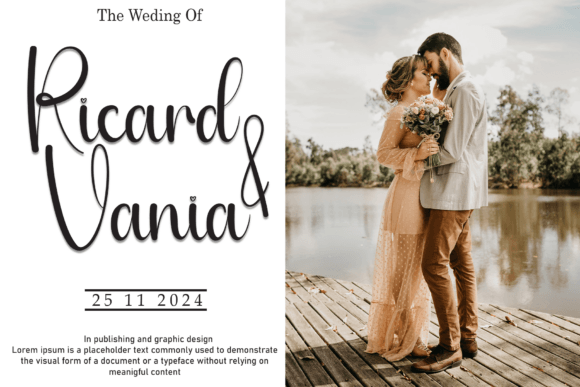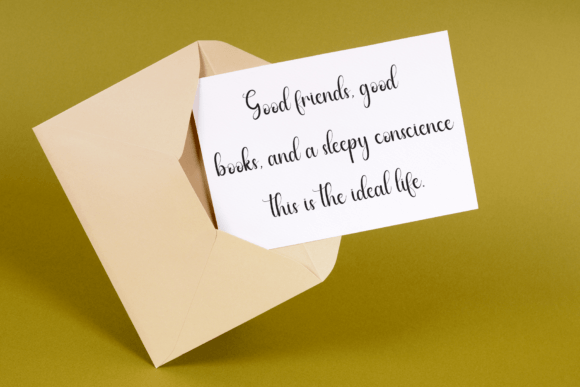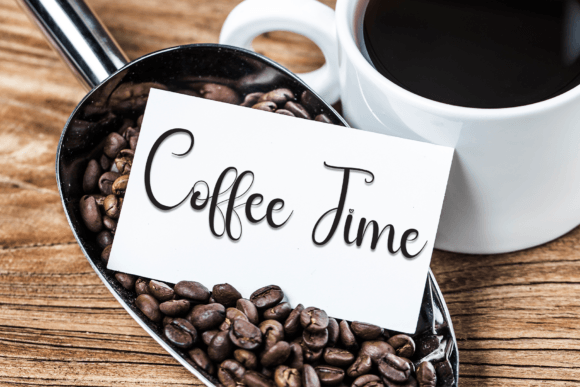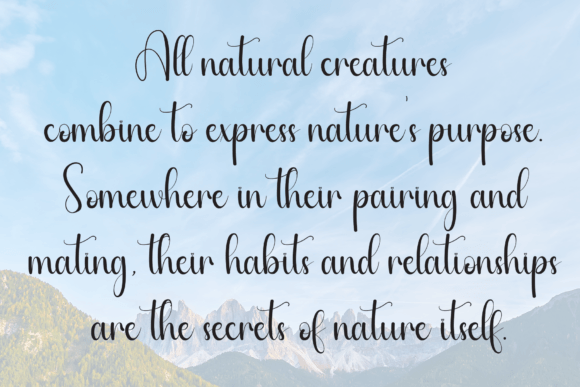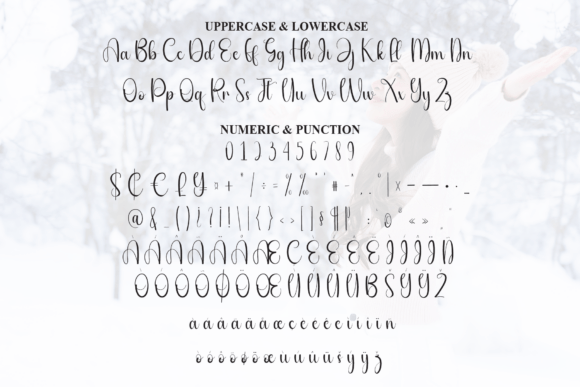
Introducing Happysnowing Font: The Ultimate Choice for Whimsical Designs
Are you a designer or crafter looking for a font that can add a touch of magic to your creations? Look no further than Happysnowing Font, a delightfully personable handwritten display font that is sure to bring a smile to your face. With its friendly curves and heartwarming character, this adorable font is perfect for wedding invitations, greetings cards, and any design seeking a touch of whimsy.
The Charm of Happysnowing Font
Happysnowing Font is more than just a font – it’s an experience. Its playful and lighthearted charm can instantly elevate your designs, making them radiate authentic joy and enchantment. Whether you’re creating a wedding invitation, a birthday card, or a social media graphic, this font is sure to make your designs stand out from the crowd. The font’s unique and whimsical style is perfect for designers and crafters who want to add a personal touch to their creations.
Perfect for Wedding Invitations and Greetings Cards
Wedding invitations and greetings cards are special occasions that deserve a font that can match their significance. Happysnowing Font is the perfect choice for these types of designs, as it can add a touch of romance and whimsy to your creations. The font’s friendly curves and heartwarming character make it ideal for conveying warm and fuzzy feelings, making it perfect for special occasions. Imagine creating a wedding invitation that sets the tone for a joyful and celebratory wedding day – Happysnowing Font can make that happen.
Bringing Whimsy to Your Designs
Whimsy is a design element that can make your creations stand out from the crowd. Happysnowing Font is designed to bring a touch of whimsy to your designs, making them more engaging and fun. The font’s playful style is perfect for designers and crafters who want to create designs that are not only visually appealing but also tell a story. Whether you’re creating a design for a children’s party or a social media graphic, Happysnowing Font can add a touch of magic to your creations.
Easy to Use and Versatile
Why Choose Happysnowing Font?
So, why choose Happysnowing Font over other fonts? Here are just a few reasons:
- Unique and Whimsical Style: Happysnowing Font has a unique and whimsical style that can add a touch of magic to your designs.
- Versatile: Happysnowing Font is highly customizable, allowing you to adjust the size, color, and style to fit your design needs.
- Perfect for Special Occasions: The font is perfect for wedding invitations, greetings cards, and other special occasions.